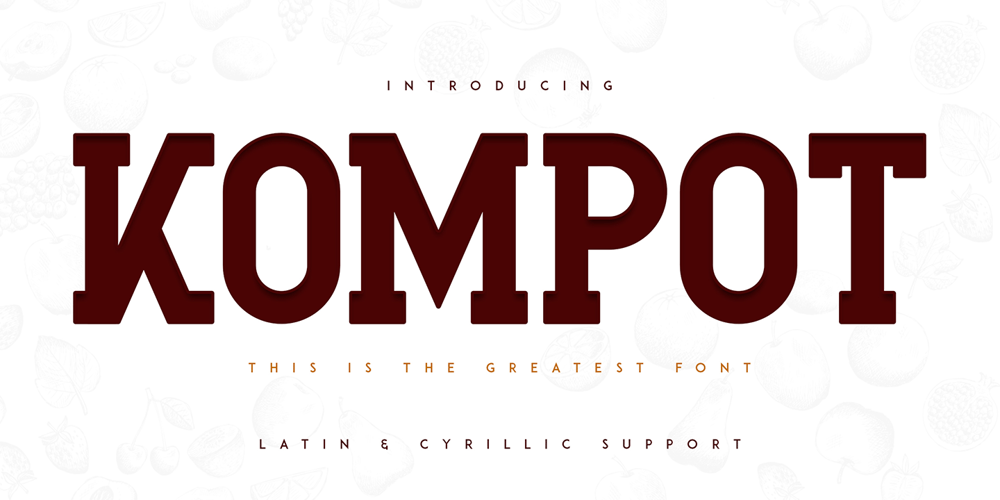
Kompot Slab Font Family was designed by Vladimir Fedotov, Plamen Petrov and published by VP Creative Shop. Kompot Slab contains 2 styles and family package options. Introducing Kompot – This is the Greatest Font … actually typeface with 2 styles Kompot Slab is swirly, vintage typeface with 2 styles to enchant your next project. They are loaded alternate glyphs and multilingual support. Very versatile fonts that works great in large and small sizes. Basic latin, advanced latin, basic Cyrillic and advanced Cyrillic character sets are supported!Kompot Slab is perfect for branding projects, home-ware designs, product packaging, magazine headers – or simply as a stylish text overlay to any background image. Uppercase numeral, punctuation & Symbol Regular Outline Alternate glyphs Multilingual support Basic and Advanced Cyrillic support How to access alternate glyphs?To access alternate glyphs in Adobe InDesign or Illustrator, choose Window Type & Tables GlyphsIn Photoshop, choose Window Glyphs. In the panel that opens, click the Show menu and choose Alternates for Selection. Double-click an alternate’s thumbnail to swap them out.Feel free to contact me if you have any questions!Mock ups and backgrounds used are not included.Thank you! Enjoy!